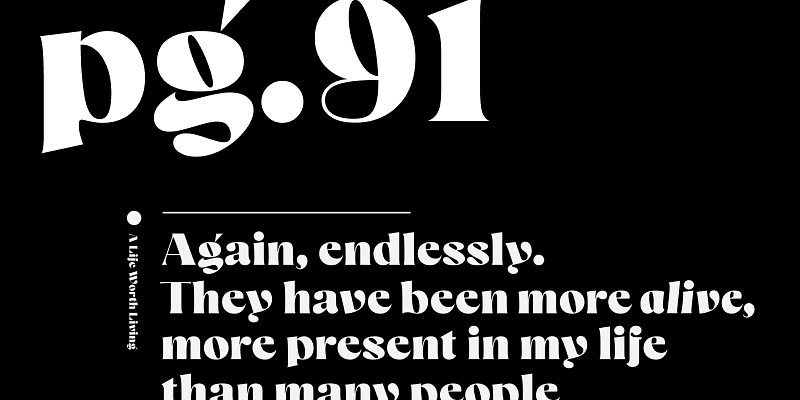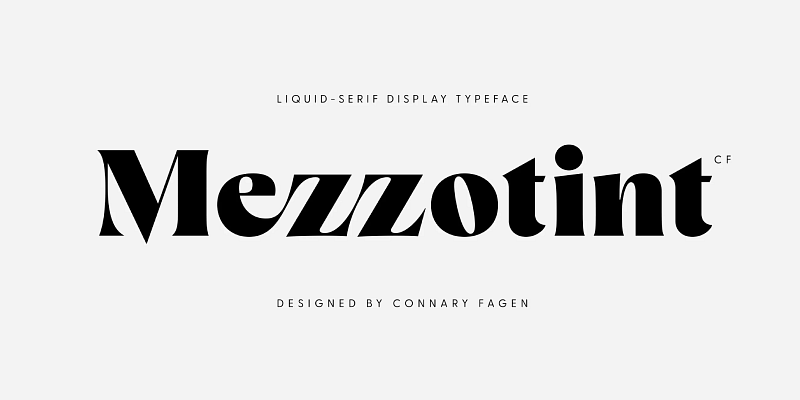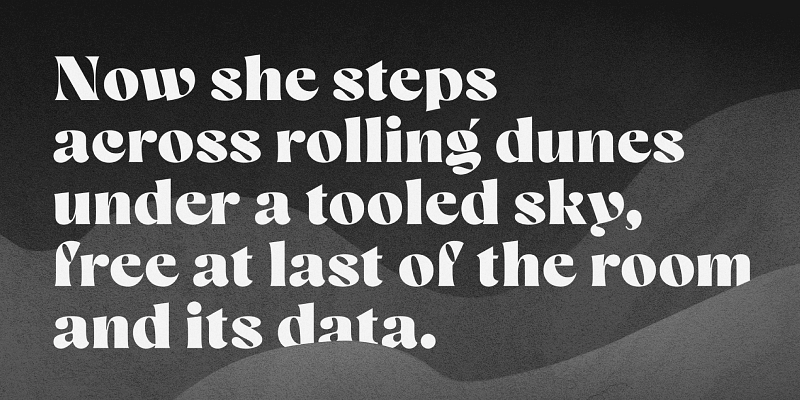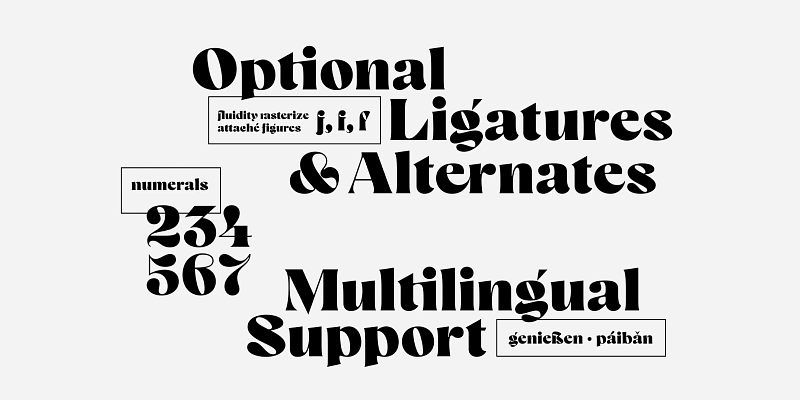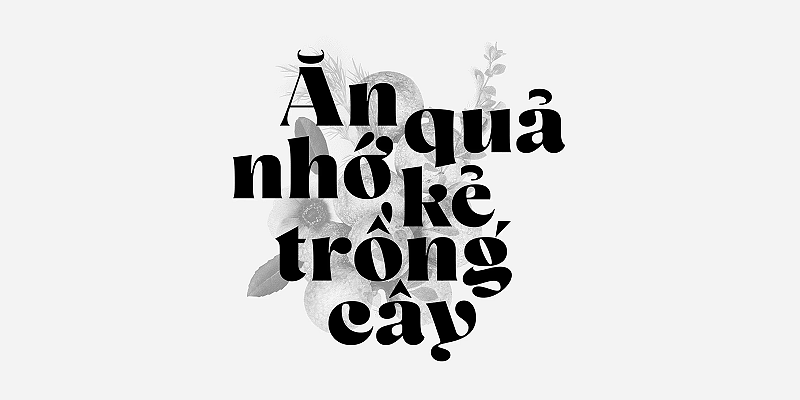
Mezzotint CF is a daring and playful display typeface perfect for logotypes, posters, and editorial use. High-contrast strokes, flared serifs, aqueous connections, and inky terminals give Mezzotint CF its striking and rakish personality. Includes roman and italic sets across a single bold weight, with wide language support, optional ligatures, OpenType alternates, and more. Mezzotint CF pairs well with a contrasting, simple geometric sans-serif like Greycliff CF; for maximum effect, try a large difference in typeface size between the two.